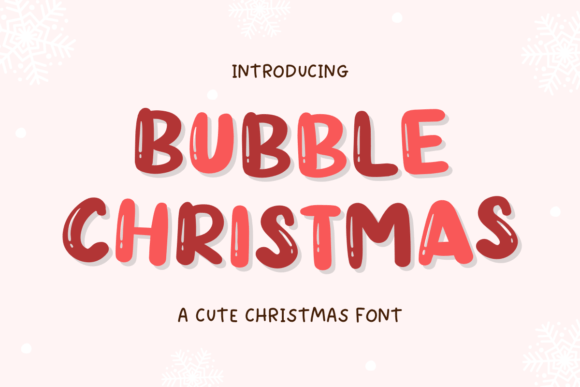
Get Ready to Jingle All the Way with the Bubble Christmas Font
It’s the most wonderful time of the year, and you know what that means – time to get creative with all things festive! You’re browsing through your font library, and suddenly, you stumble upon the perfect addition to your holiday projects: the Bubble Christmas Font. This charming display font is a must-have for designers who want to add a playful touch to their winter-themed designs.
With its PUA encoded features, accessing all the glyphs and swashes is a breeze, allowing you to create truly unique and eye-catching designs. Whether you’re working on a festive greeting card, a holiday-themed website, or a social media post, the Bubble Christmas Font is the perfect fit. Its quirky and playful nature makes it an invaluable asset for designers who want to add a little extra magic to their projects.
- Font Family: A unique and playful font family designed specifically for the holiday season, featuring a bubble-like aesthetic.
- Unique Characteristics: The font features intricate bubble-like ornaments, making it perfect for creating festive and whimsical designs.
Bubble Christmas Font Review
I recently had the chance to work with the “Bubble Christmas Font” and here’s my honest take on it.
- The font’s playful and whimsical feel is perfect for festive projects.
- The bubble-like design elements add a fun and creative touch.
- The font may not be suitable for formal or professional projects due to its playful nature.
- The bubble design elements can make the text appear cluttered if not used judiciously.
Overall, I think the “Bubble Christmas Font” is a great choice for anyone looking to add a touch of festive fun to their projects. While it may have some limitations, the font’s customization options and playful design elements make it a great option for creative projects. Just be sure to use it judiciously and consider your target audience before using it for formal projects.
The Bubble Christmas Font is perfect for:
- Creating festive holiday invitations and cards.
- Designing Christmas-themed social media graphics and posts.
- Adding a playful touch to holiday-themed presentations and documents.